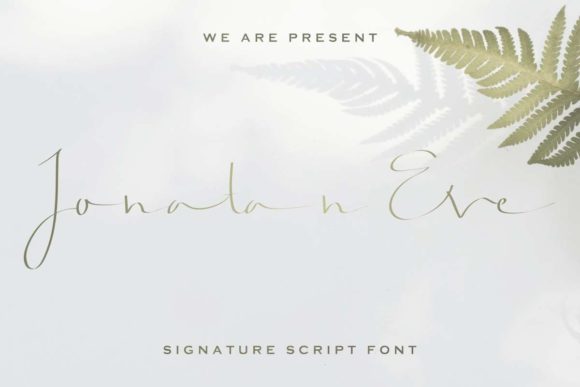
Immerse yourself in the captivating charm of Jonatan Eve, a script font that breathes life into your creative vision. Crafted with meticulous care by EdricStudio, this font is a masterpiece of elegance and beauty, designed to elevate your designs to new heights.
Abandon the mundane and embrace the extraordinary with Jonatan Eve. Its graceful strokes and timeless aesthetic will transform your words into works of art, captivating the hearts of your audience. Effortlessly convey your message with a font that speaks volumes without uttering a single word.
Unleash your imagination and embark on a creative journey where every project becomes a masterpiece. Jonatan Eve's enchanting curves and delicate details will weave a spellbinding narrative, drawing eyes and enchanting hearts. Whether you're crafting logos, branding materials, invitations, or social media posts, this font will infuse your designs with a touch of magic.
With Jonatan Eve as your creative partner, you'll discover a world of endless possibilities. Its versatility knows no bounds, as it seamlessly blends with a wide range of design styles. From classic and timeless to modern and edgy, Jonatan Eve effortlessly adapts, becoming an integral part of your visual storytelling.
But it's not just about aesthetics; Jonatan Eve is a font that captivates and engages. Its meticulously crafted characters evoke emotions, creating a deeper connection between your brand and your audience. Whether you're aiming to inspire, persuade, or simply leave a lasting impression, this font will be your trusted ally.
So, bid farewell to ordinary fonts and embrace the extraordinary with Jonatan Eve. Let your creative spirit soar as you witness the transformation of your designs into captivating works of art. Experience the magic of Jonatan Eve today and unlock a world of creative possibilities.